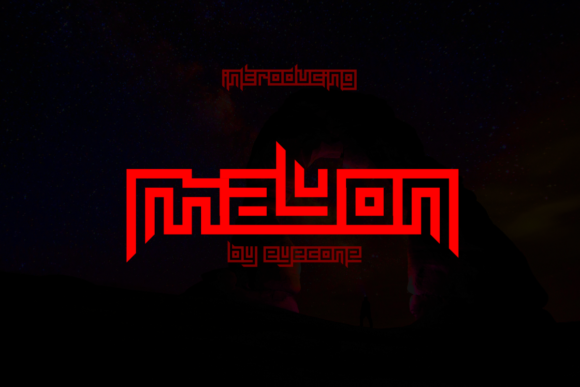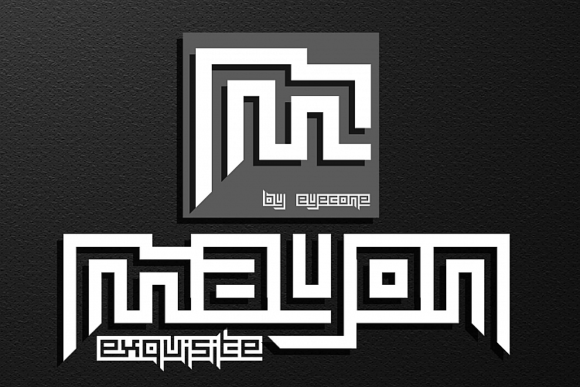
Introduction to Mayon Exquisite Font
As designers, we’ve all been there – staring at a blank canvas, waiting for the perfect font to bring our creative project to life. It’s that moment when the right typography can elevate your design from good to great, and that’s exactly where the Mayon Exquisite Font comes in. This bold and unique display typeface is about to become your go-to design resource for making a statement.
With its contemporary coolness and high-quality design, the Mayon Exquisite Font is the perfect addition to any creative project. Whether you’re working on a branding project, a social media campaign, or a print design, this font is sure to make your design stand out. And the best part? It’s available for a free download, complete with a transparent background, making it easy to integrate into your design.
In this article, we’ll dive deeper into the world of the Mayon Exquisite Font, exploring its features and benefits, and showing you how to get the most out of this incredible design resource.
Key Features of Mayon Exquisite Font
- High-quality design resource ideal for creative projects requiring a unique and elegant touch.
- Transparent background, allowing for seamless integration with various design elements and backgrounds.
- Features a clean and modern design aesthetic, making it suitable for a wide range of creative applications.
- Perfect for designers and artists looking for a high-quality, unique font to elevate their creative project.
Honest Review: Mayon Exquisite Font
I recently stumbled upon the Mayon Exquisite Font, and I must say it’s been a game-changer for my design projects. As a designer, I’m always on the lookout for high-quality fonts that can elevate my creative work.
Here are some aspects of the font that I think work well:
- ✨ Unique and elegant design that adds a touch of sophistication to any project
- ✨ Excellent legibility, making it perfect for both digital and print materials
- ✨ Supports transparent background, giving me the flexibility to use it in a variety of design scenarios
However, I do have a few limitations to note:
- ⚠️ Limited font styles and weights available, which might be a drawback for designers who need more options
- ⚠️ Not suitable for display text, as it can be a bit too elegant and may get lost in larger font sizes
Overall, I’m really impressed with the Mayon Exquisite Font, and I think it’s a great addition to any designer’s toolkit. While it may have some limitations, its unique design and high-quality feel make it a must-have for any creative project.
Experiment with different font sizes and styles to achieve the desired look. Combine the Mayon Exquisite Font with other design elements to create a cohesive and visually appealing design. Use the font’s transparent background to create a sense of depth and dimensionality in your design.
The Mayon Exquisite Font is ideal for a variety of creative projects, including logos, business cards, invitations, and presentations. Its high quality and transparent background make it perfect for designs that require a touch of elegance and sophistication.